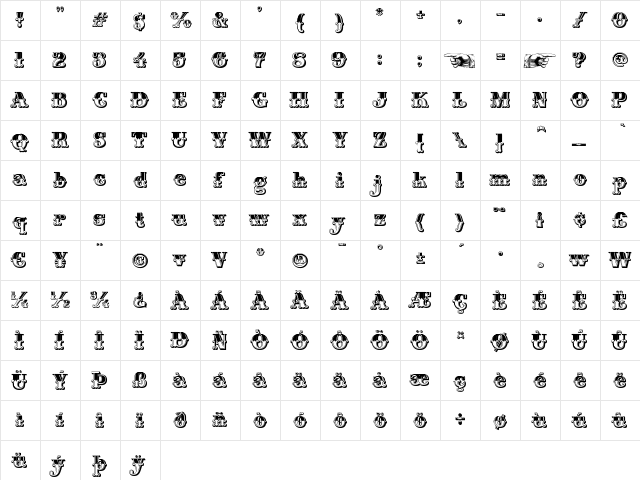
Home Style Plain Regular
| Designer | Michael Hagemann |
Design Context for Home Style Plain Typeface
Home Style Plain is a composed and adaptable typeface that performs quietly and consistently across a wide range of design contexts.